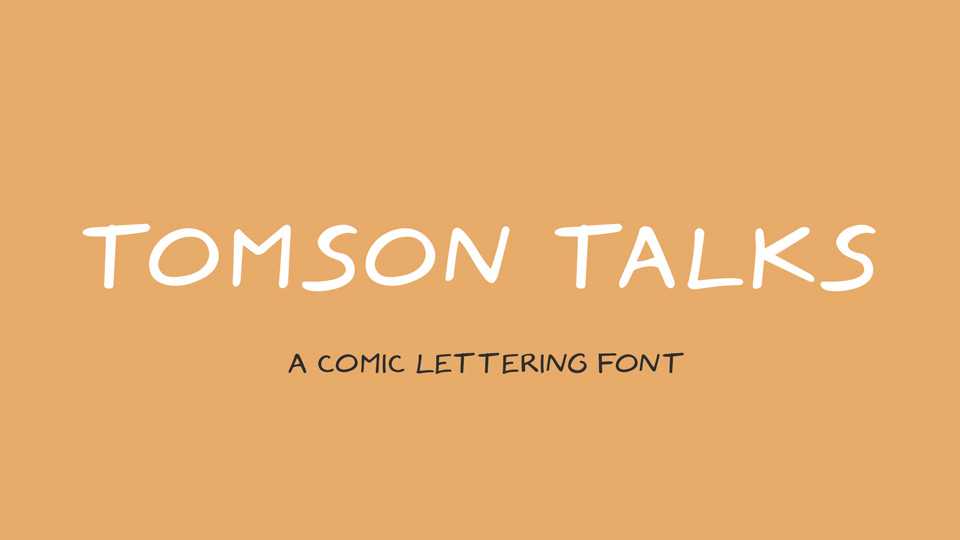
Download Tomson Talks font, a comic lettering typeface created with online comics. Tomson Talks is great for games, notes, comic books, posters, cards and other fun projects.
Designer: Frank Bruder